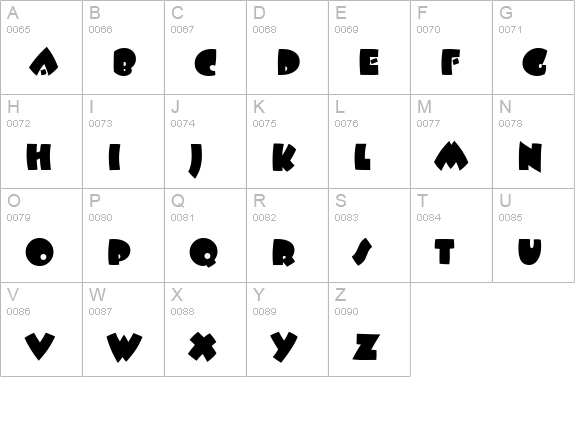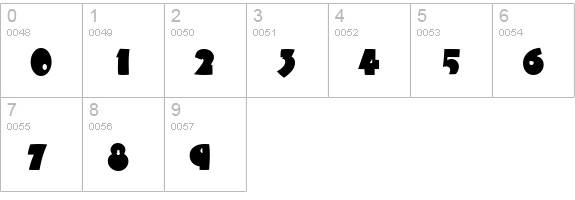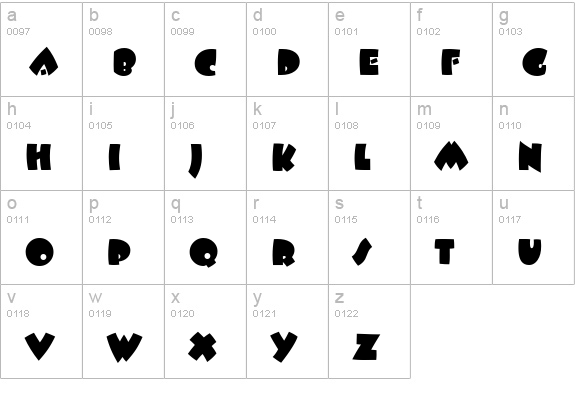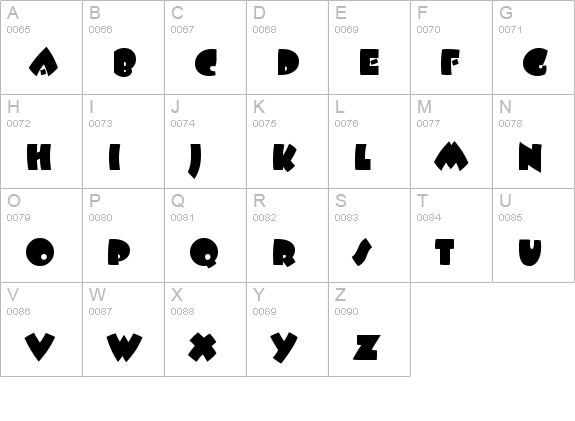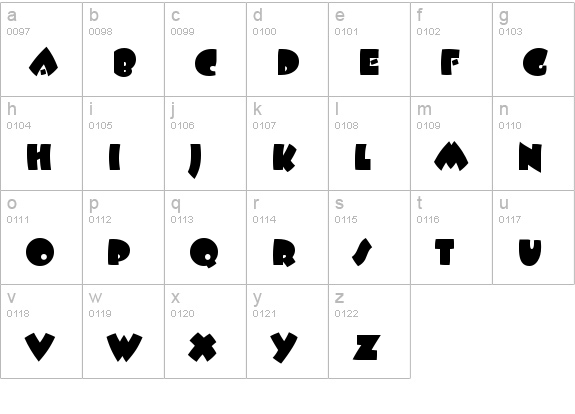
Beetlejuice Regular Font Details
Beetlejuice Regular is the standard, neutral variant in the Beetlejuice typeface family \xE2\x80\x94 well suited to general body text, paragraphs, and standard typographic work.
Beetlejuice Regular font is a quirky and playful typeface that exudes a whimsical charm. Its unique design features irregular lines and playful curves, giving it a fun and energetic appearance. Perfect for adding a touch of personality to your projects, Beetlejuice Regular is sure to make a statement. This font is not only visually appealing but also versatile, making it suitable for a wide range of design purposes such as branding, packaging, posters, and more. Whether you're looking to create a bold headline or add a playful touch to your designs, Beetlejuice Regular has got you covered. Best of all, Beetlejuice Regular is available for free download at FontsMarket.com. So go ahead and unleash your creativity with this delightful font without any cost. Download now and add a touch of whimsy to your projects with Beetlejuice Regular!